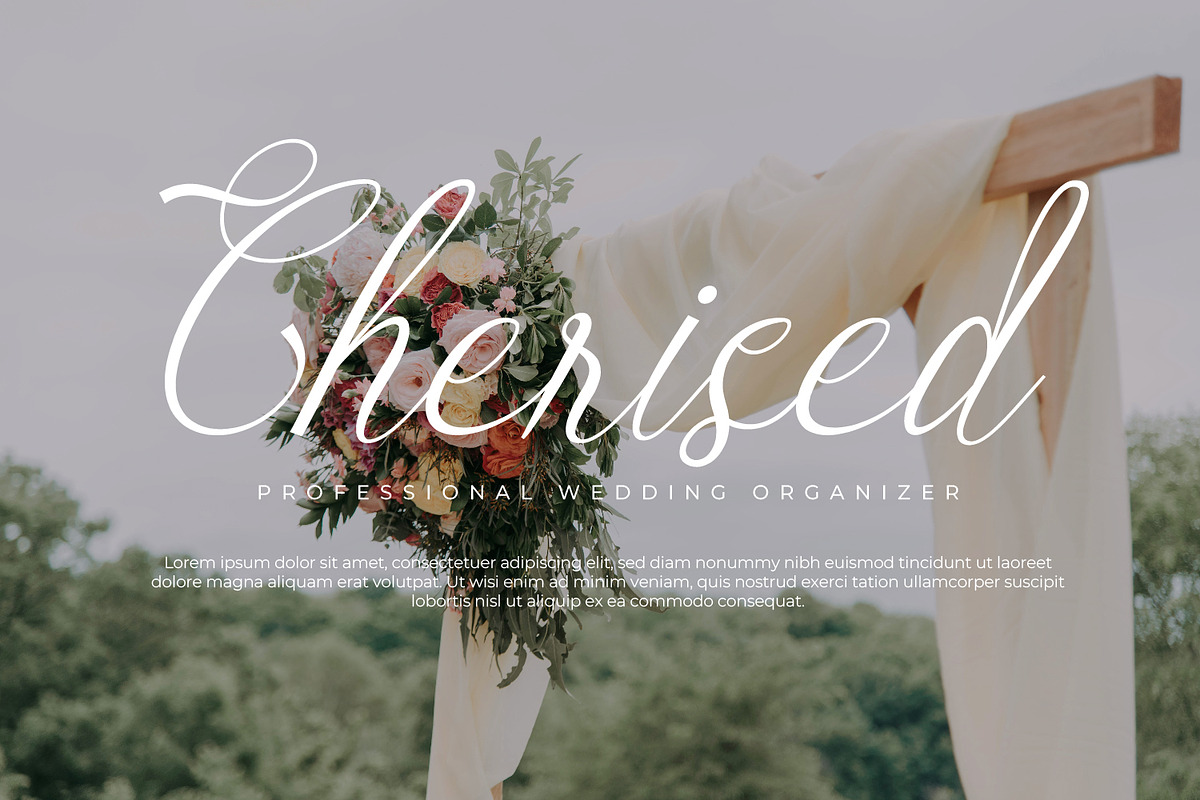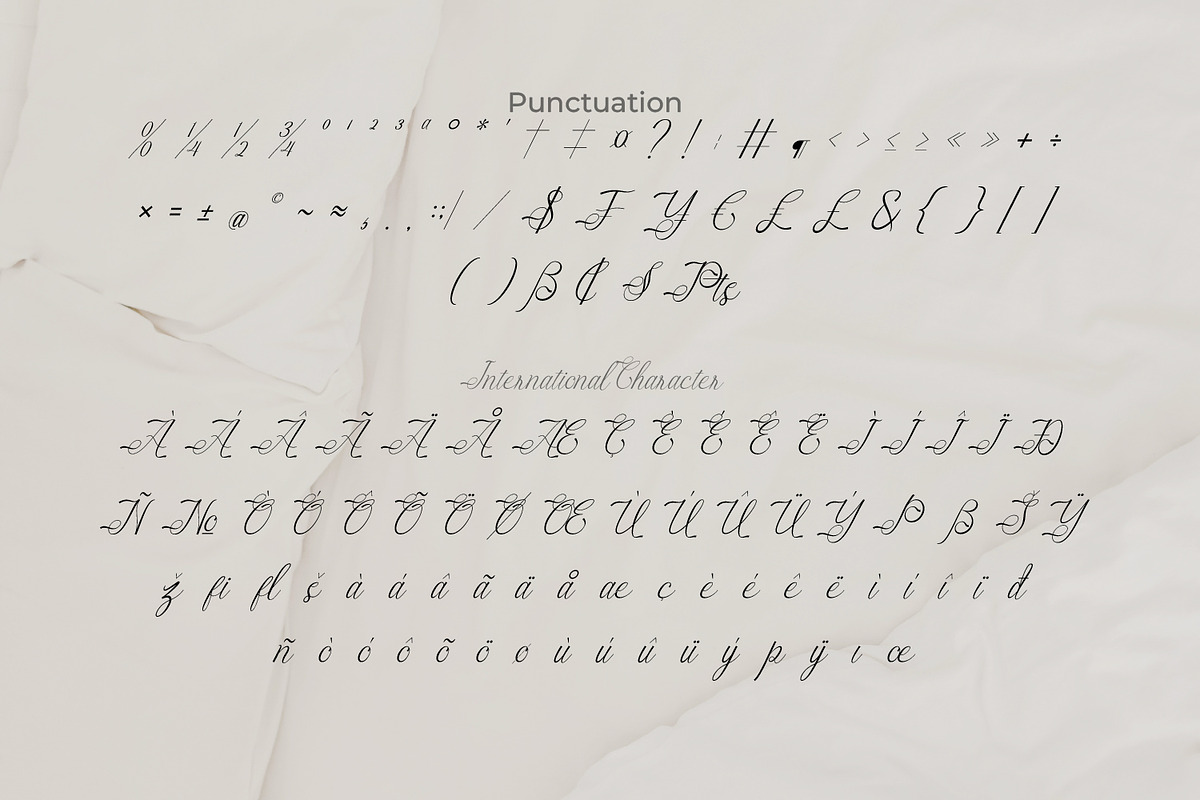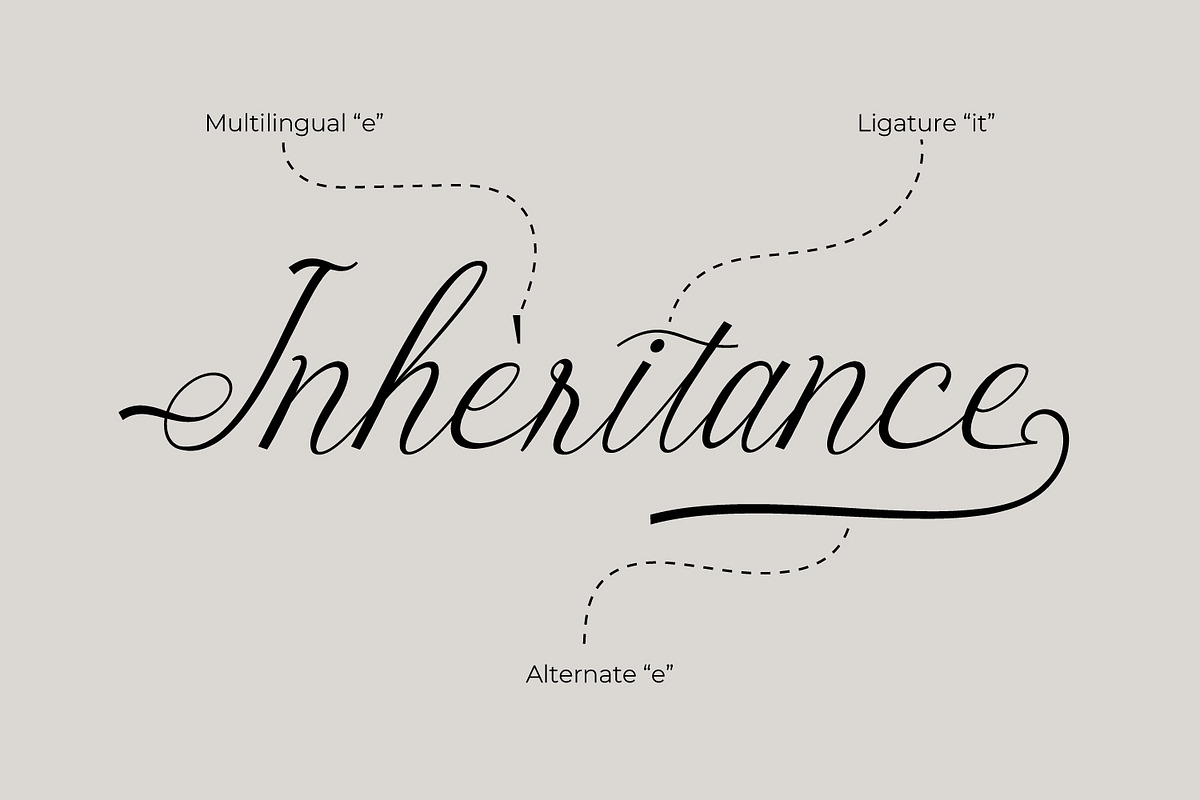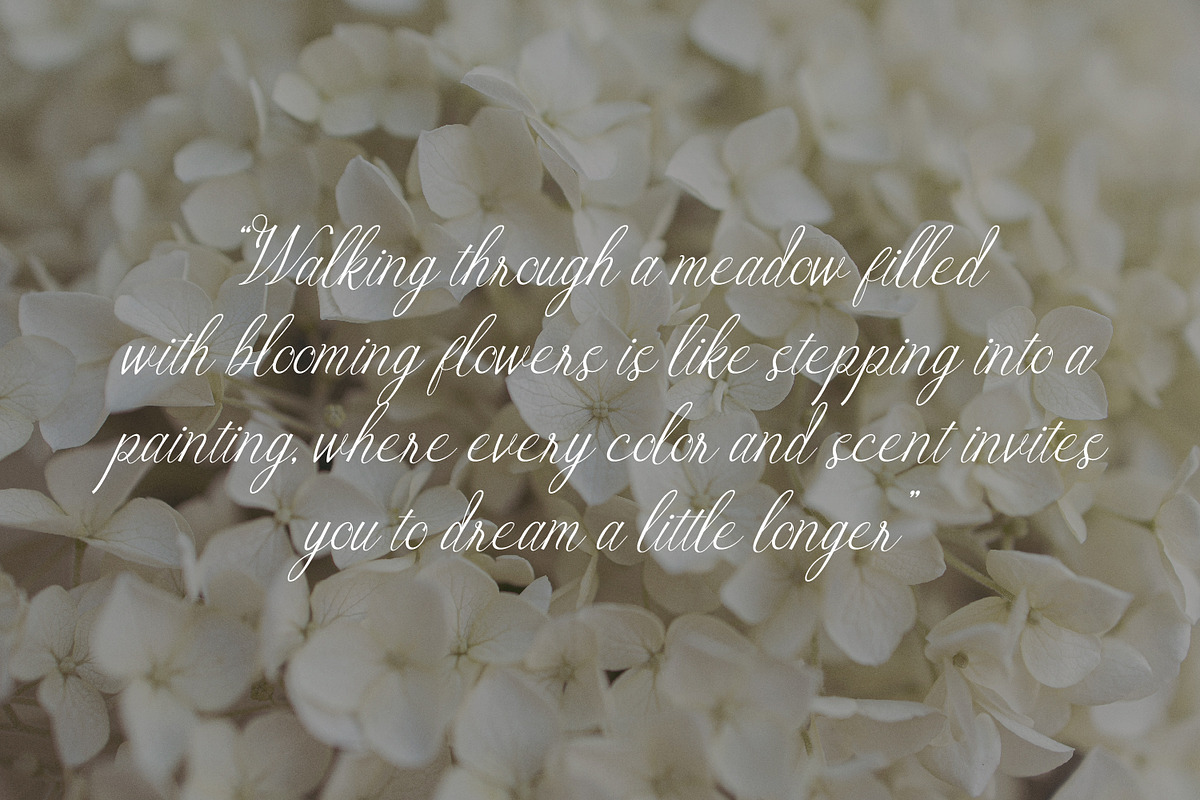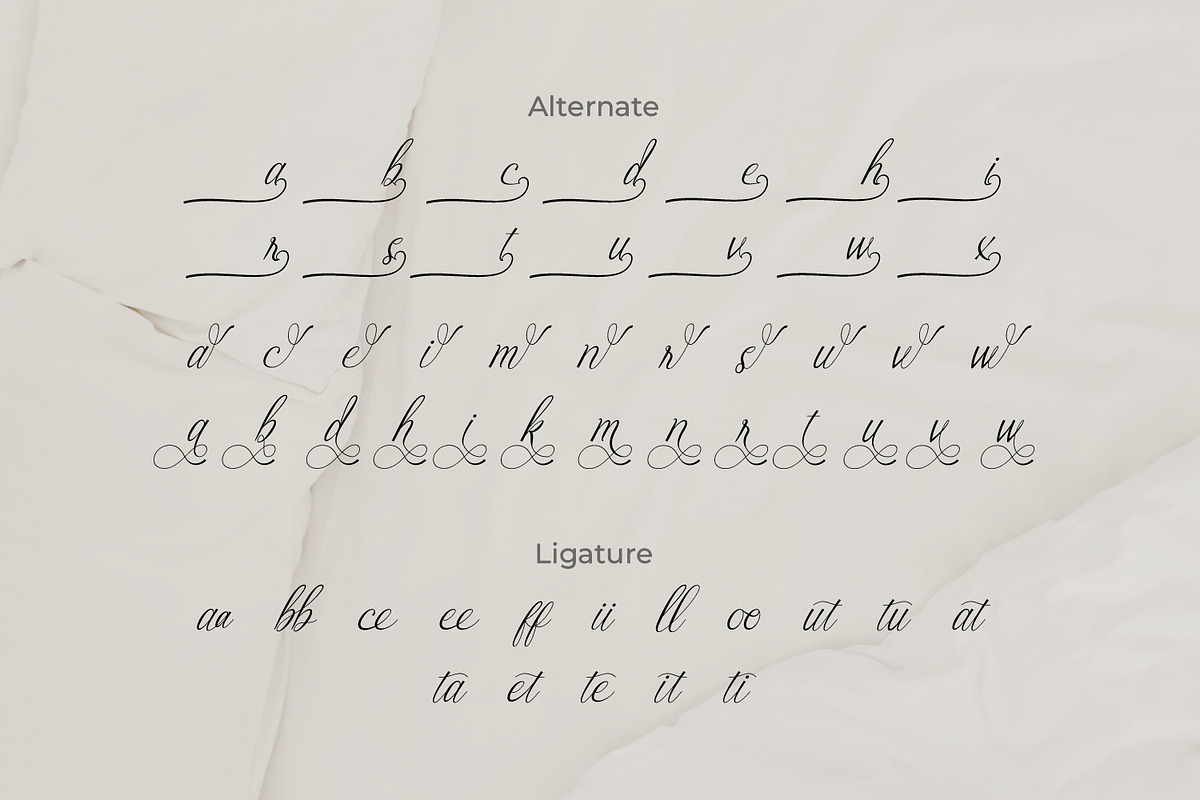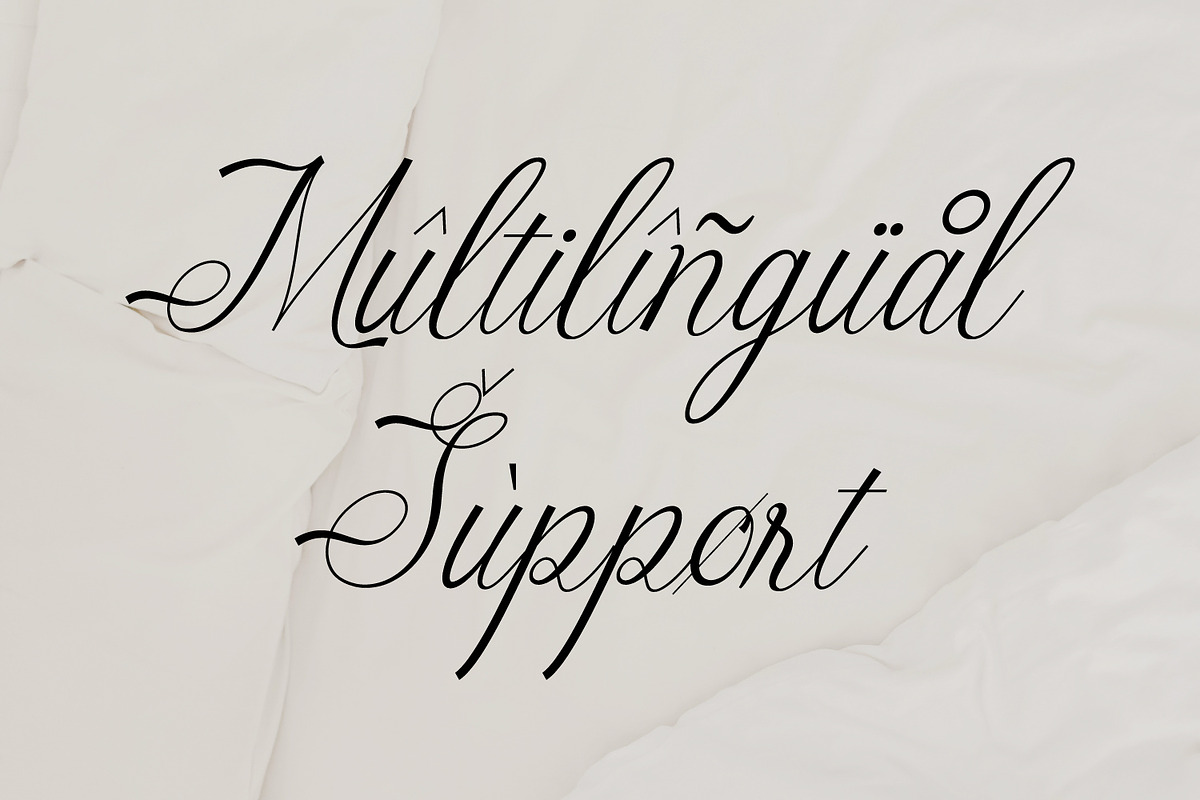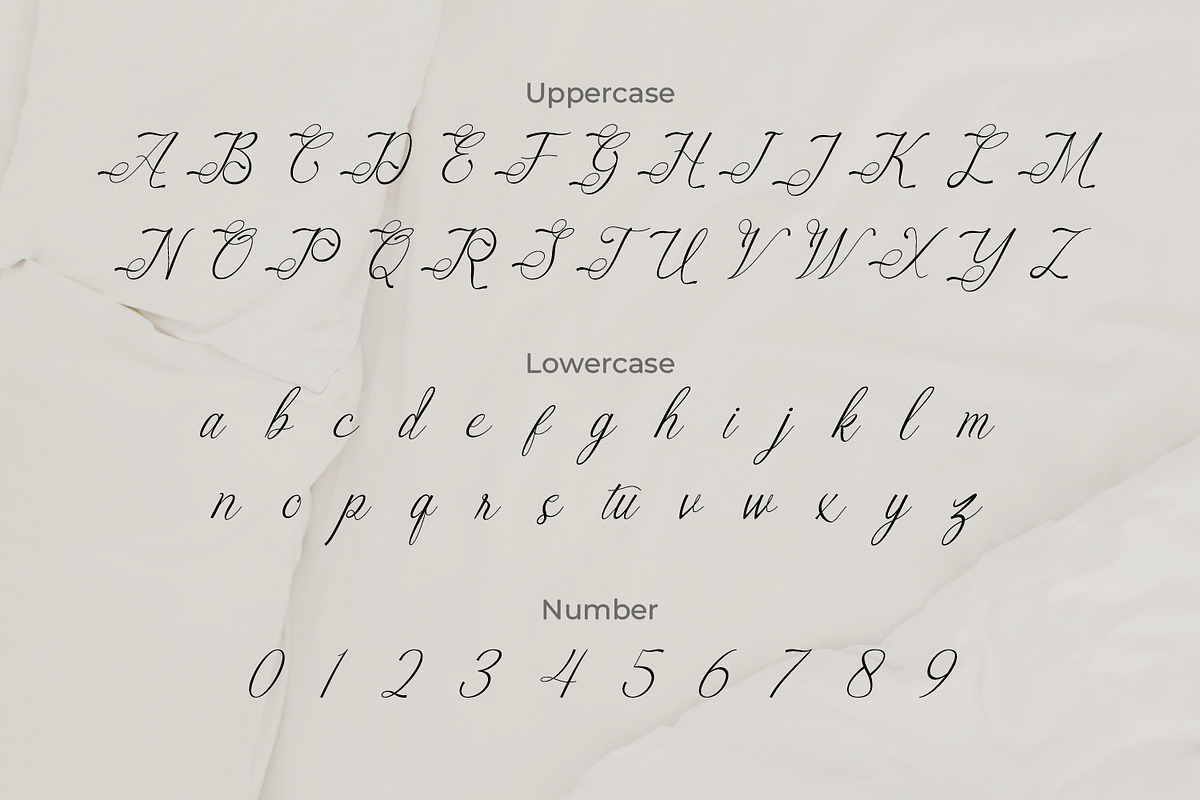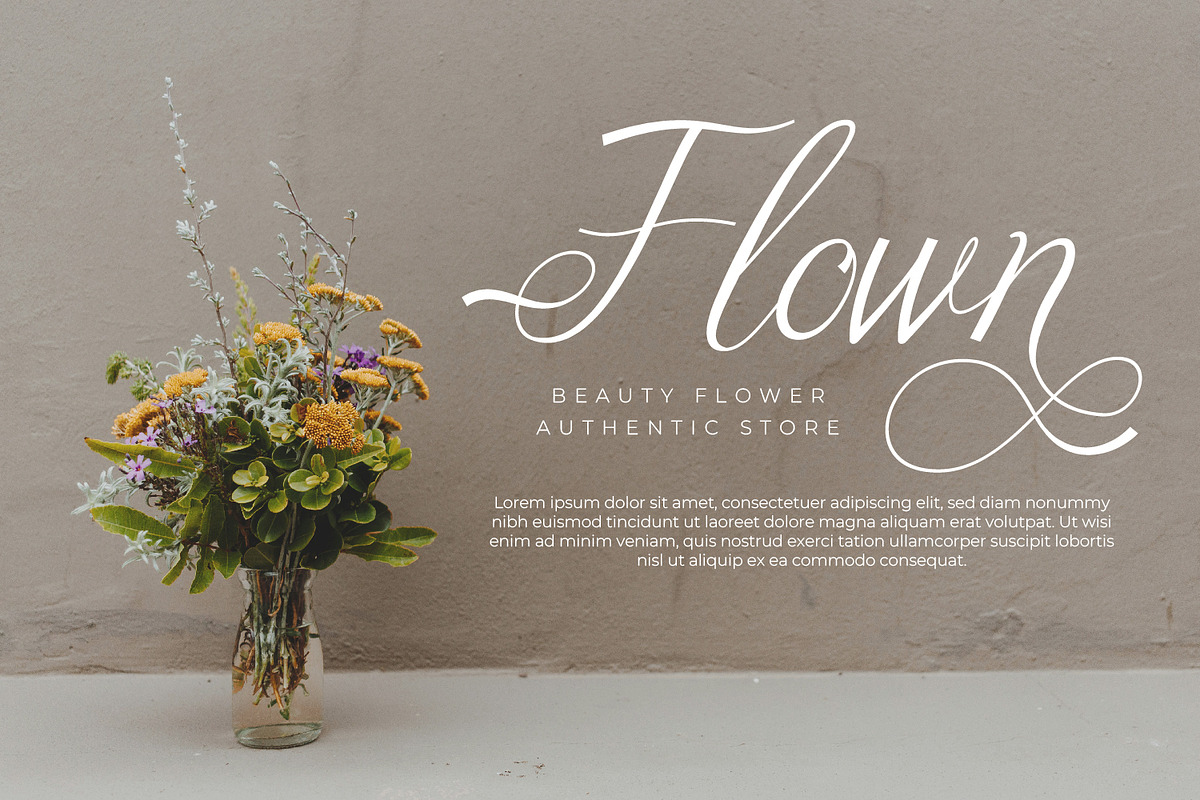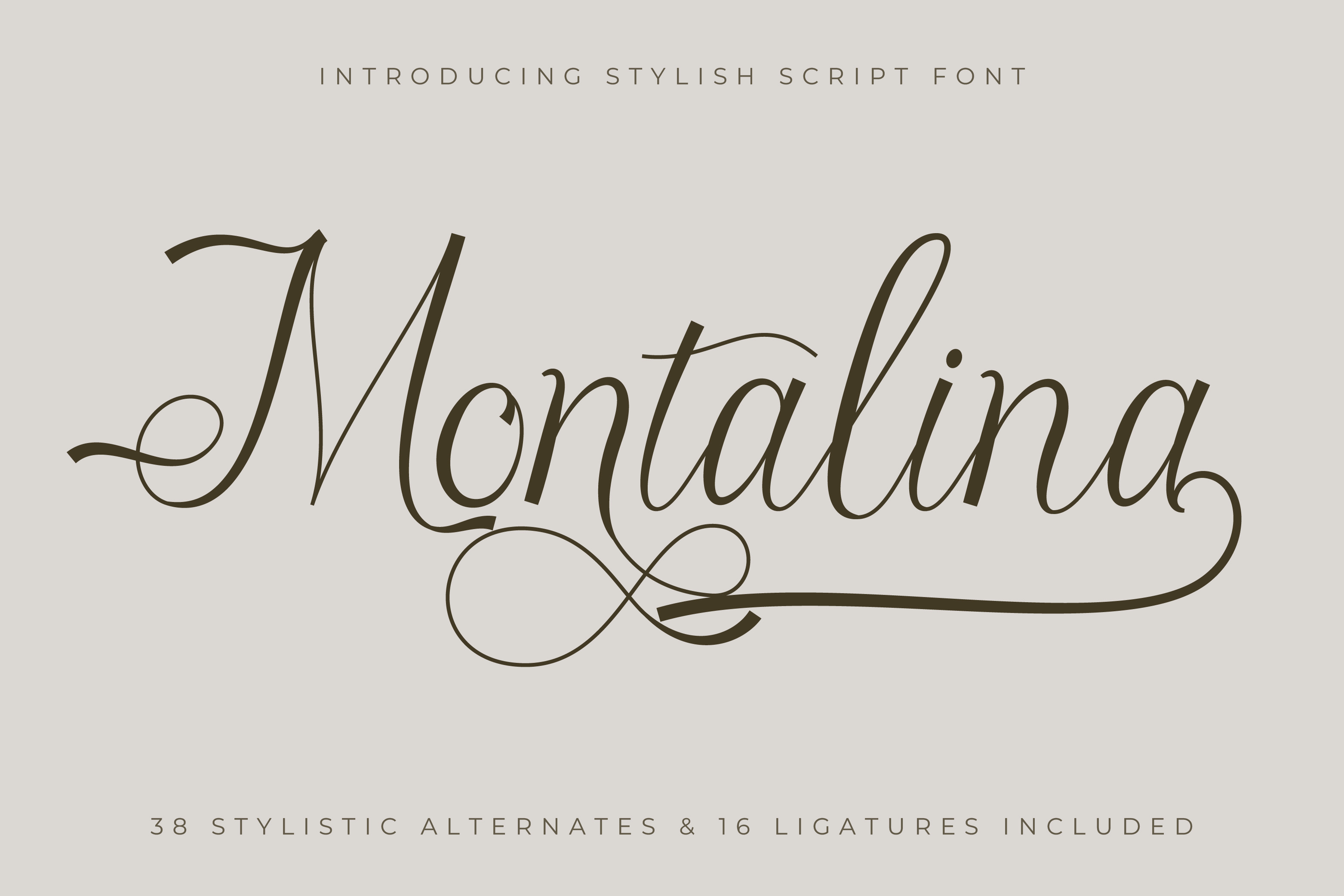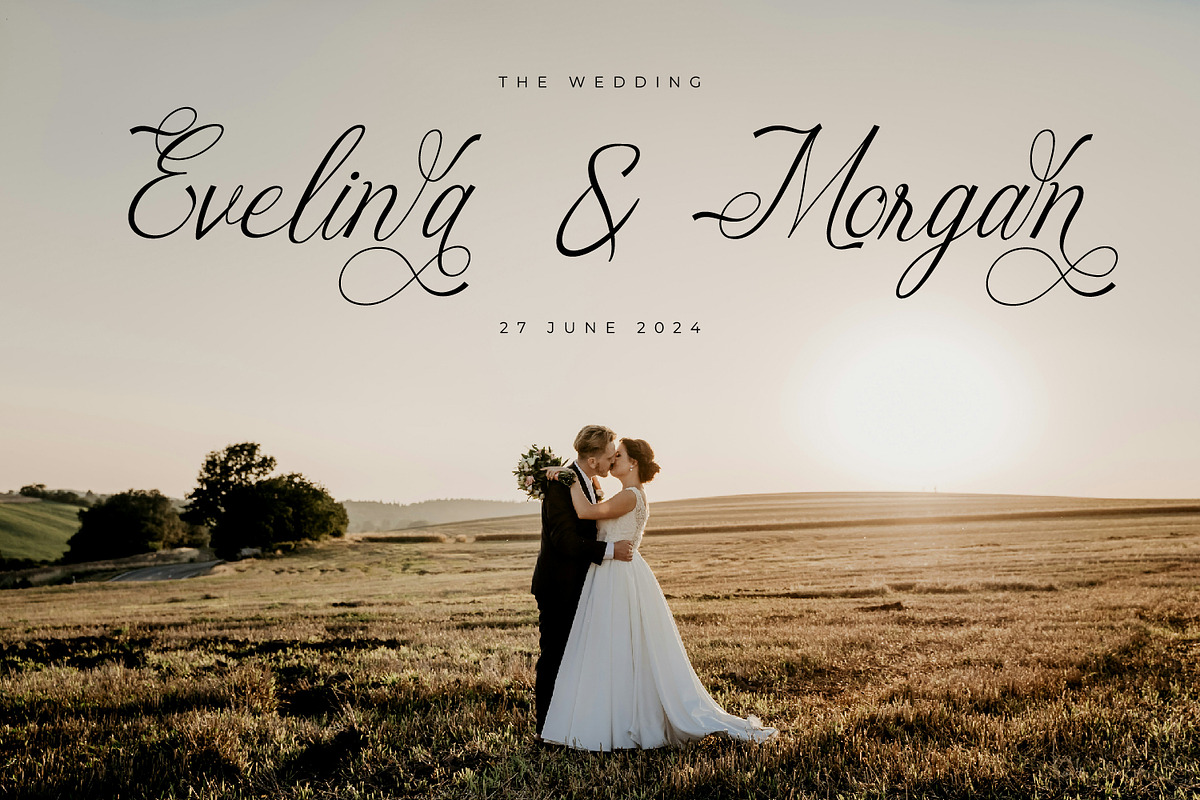
Montalina - Modern Script font
Montalina - Modern Script Font, from Rishsketch Studios, is a premium Script Font, perfect for any project that requires a distinctive, and premium feel.
- Ligature, Alternate & amp; Multilingu